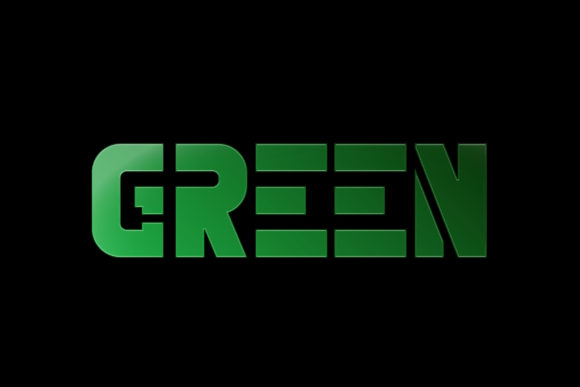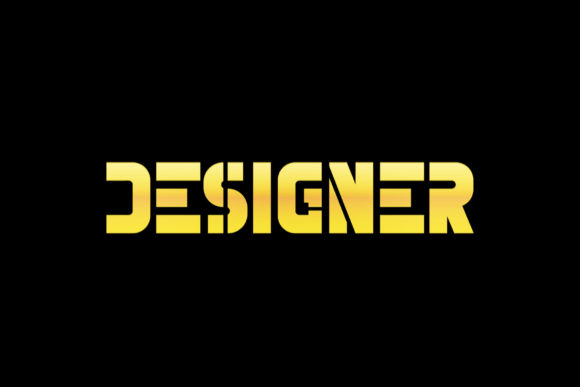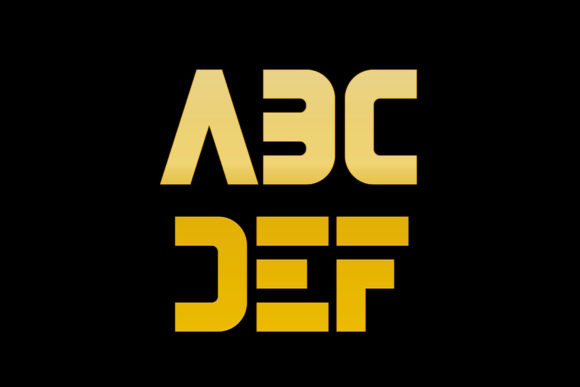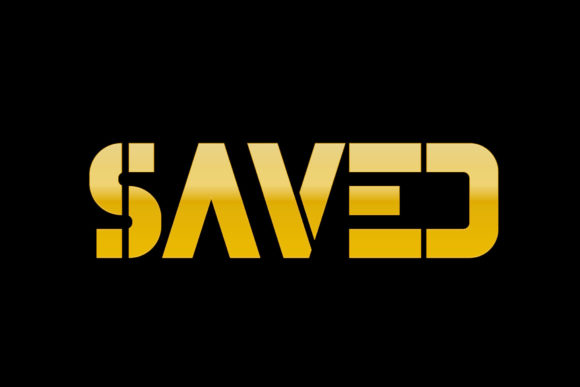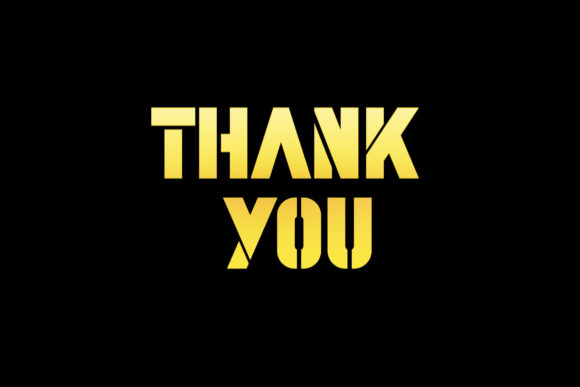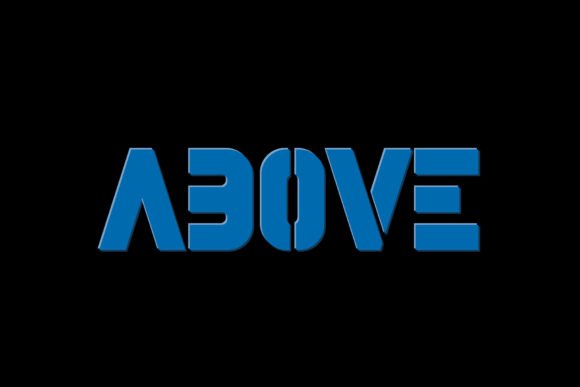
Unlock the Power of Above Font: Elevate Your Creative Projects
Have you ever stared at a blank canvas, feeling stuck and unsure of where to begin? The blank page can be intimidating, but what if you had the perfect tool to spark your creativity? For designers and crafters alike, finding the right font can make all the difference in bringing a project to life. That’s where Above Font comes in – a bold, thick lettered display font that’s sure to elevate any crafting idea.
Above Font is designed to add a touch of sophistication and elegance to your creations, from cards and branding to labels and more. Its unique style and versatility make it a valuable addition to any designer’s toolkit. Whether you’re looking to make a statement or add a pop of personality to your work, Above Font is the perfect choice. With its confidence-inspiring design, you’ll be amazed at the incredible outcomes you can achieve.
Above Font Key Features
- Font Styles: Above Font offers a range of 12 unique font styles, including sans-serif, serif, script, and display fonts, each with its own distinct characteristics.
Designer Review: Above Font
Overall, I’m impressed with Above Font’s unique approach to typography. It’s a modern sans-serif font that exudes elegance and sophistication. ✨ I love how it works well in both digital and print mediums, making it a versatile choice for designers.
One of the standout features of Above Font is its extensive language support. It’s a huge plus for designers who need to work with clients from diverse linguistic backgrounds. ✨ Additionally, the font’s high x-height makes it easy to read, even at small sizes.
What I Like:
- Unique and modern design
- Extensive language support
- High x-height for readability
- Works well in both digital and print mediums
What I Don’t Like:
- May be too bold for some designs ⚠️
- Lack of subtle texture and nuance in some weights ⚠️
- Not suitable for extremely fine typography ⚠️
Overall, Above Font is a solid choice for designers who want a modern and elegant sans-serif font. While it may not be perfect, its strengths outweigh its weaknesses, making it a great addition to any design arsenal.
For the most effective use of Above Font, consider the following tips:
Use Above Font for headings and titles to add a touch of elegance and sophistication.
Pair Above Font with a clean and simple design to create a visually appealing contrast.
Above Font is particularly effective in creative and artistic projects, such as graphic design, photography, and fine art.